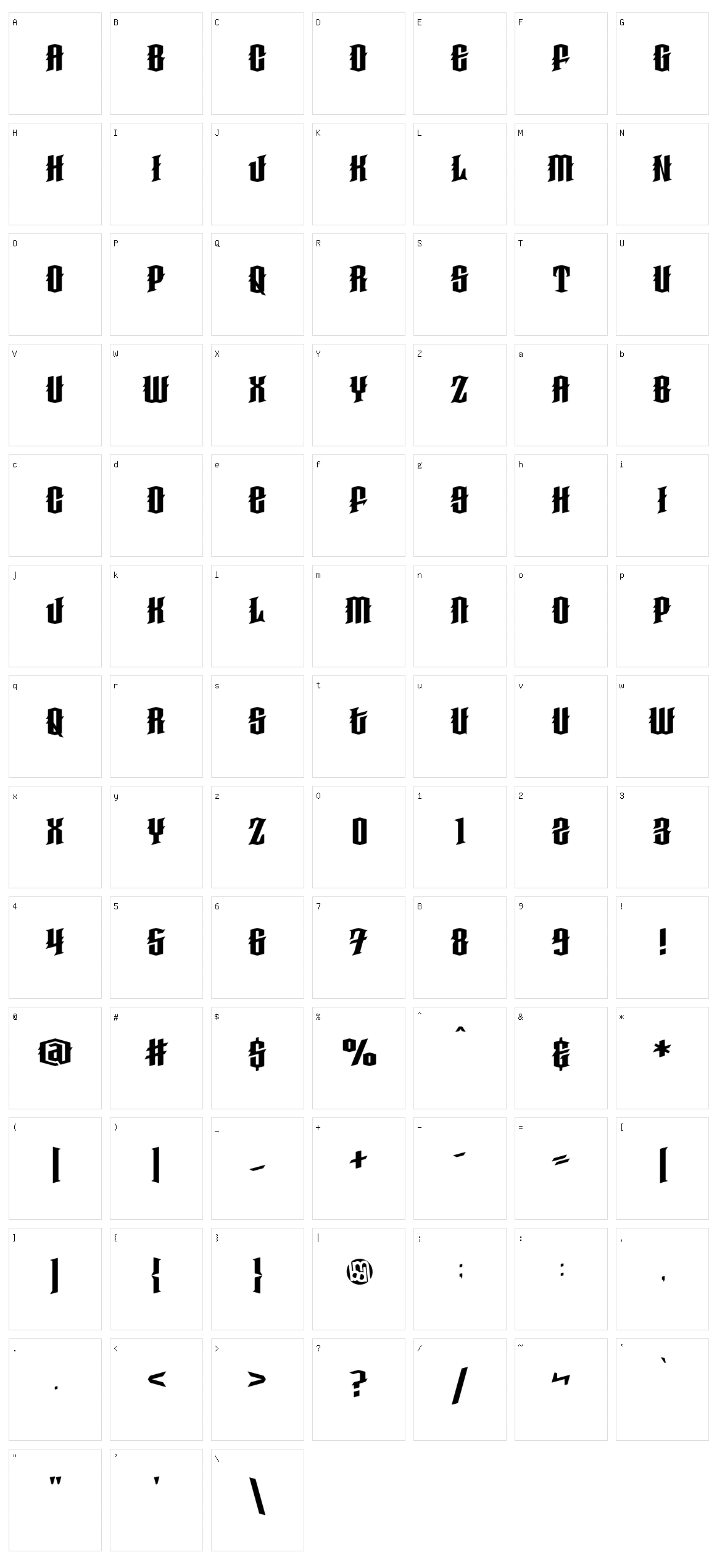
Haunted Woods
Designed by: Brittney Murphy Design
Description: The free font Haunted Woods is carefully designed by Brittney Murphy Design, showcasing a thoughtful balance of creativity and usability and belongs to the Gothic font family. When you download the ZIP file, it contains only 25.06 KB of font files, making it lightweight and quick to download. Please review the license details below to understand permitted usage and distribution rights. If license information is not available, we recommend using this font for personal projects only or contacting the author directly for commercial usage permissions.